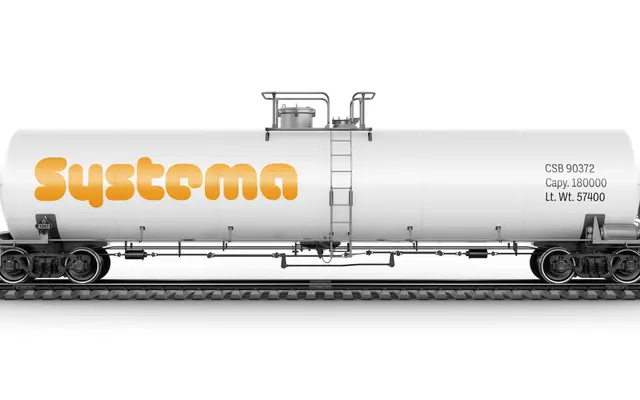
Glammo specimen from Signal
A single-weight display face born from a David Bowie festival poster commission, drawing on techno culture, AKIRA and the Designers Republic for a deliberately unsettling 1990s aesthetic.
Commissioned for a typographic poster tied to Bowie's BLACK TIE WHITE NOISE, Glammo channels the dark edge of early 1990s techno and anime visual culture into a single display weight. The Designers Republic influence is legible in its sleek-yet-wrong geometry, evoking both the era's graphic maximalism and its undercurrent of anxiety. Available as a single style with desktop, web and app licences.
Glammo is a display typeface with explicit references to techno culture, AKIRA and the Designers Republic, placing it firmly in the techno/industrial display subcategory with a dark 1990s aesthetic.